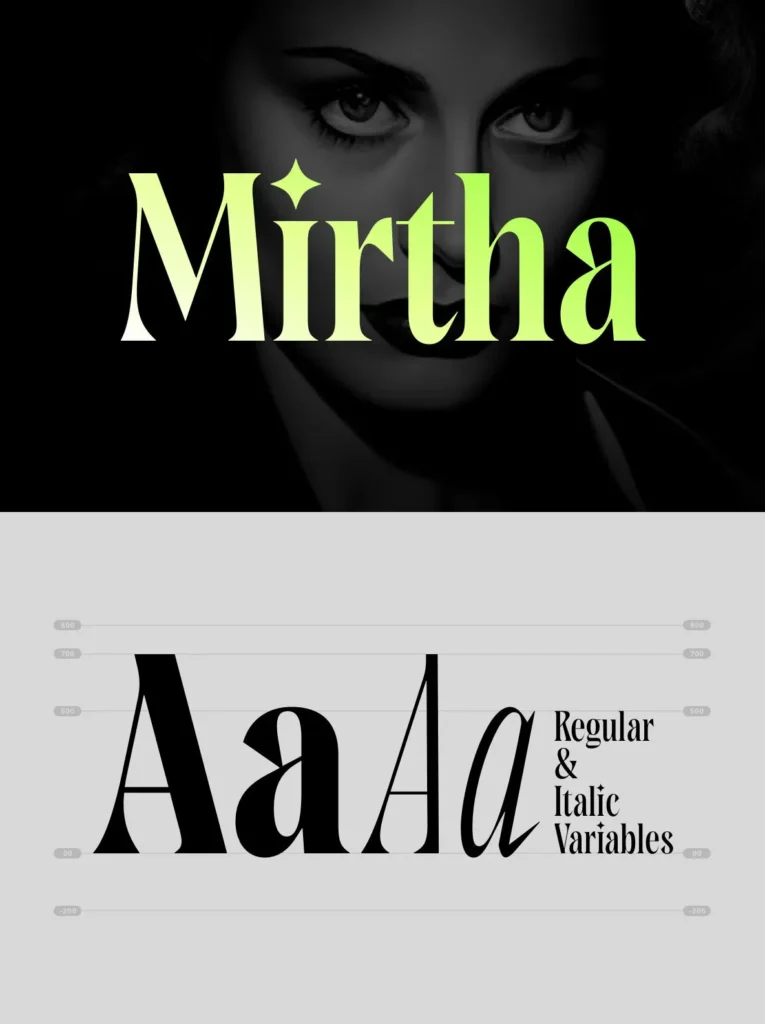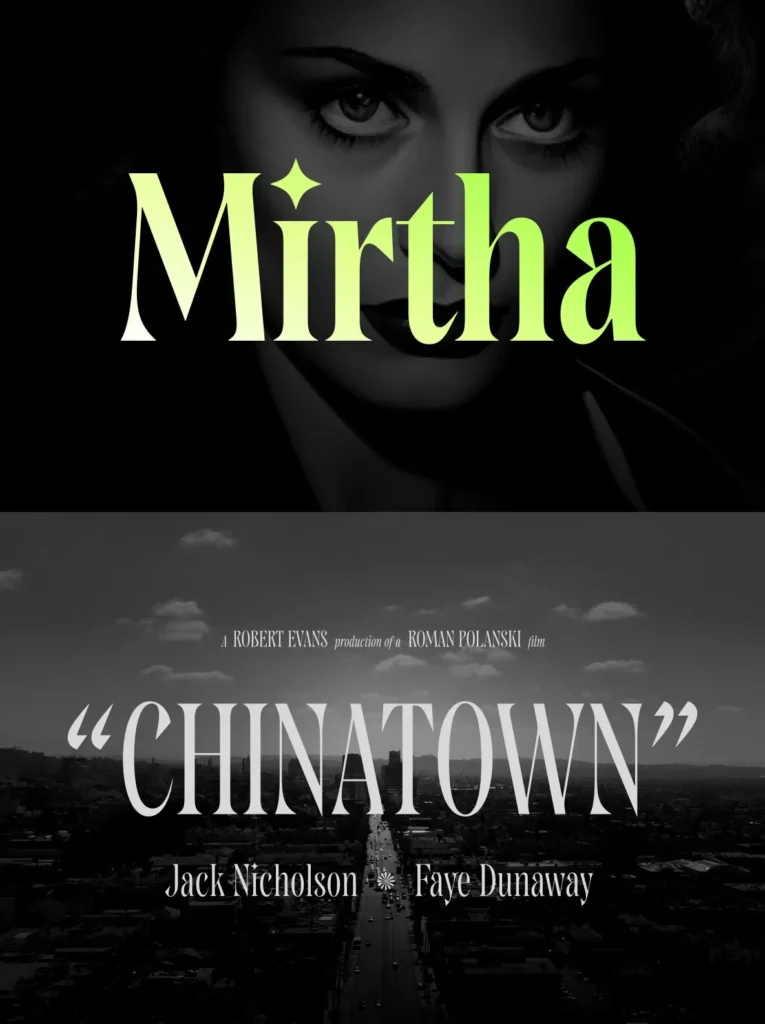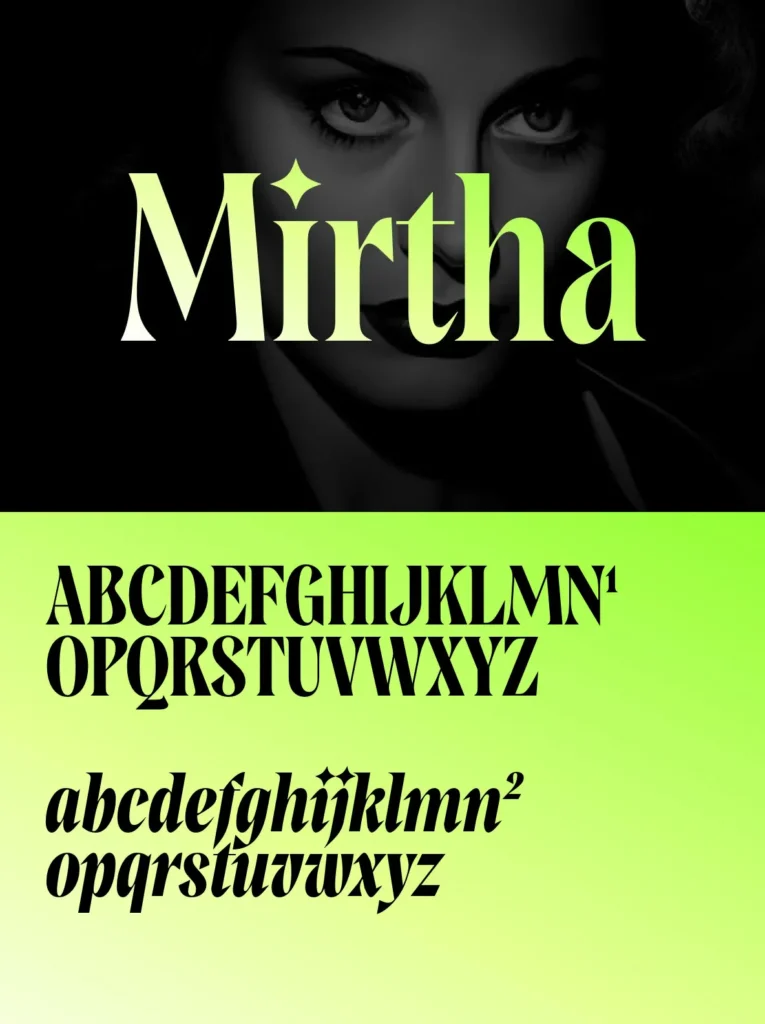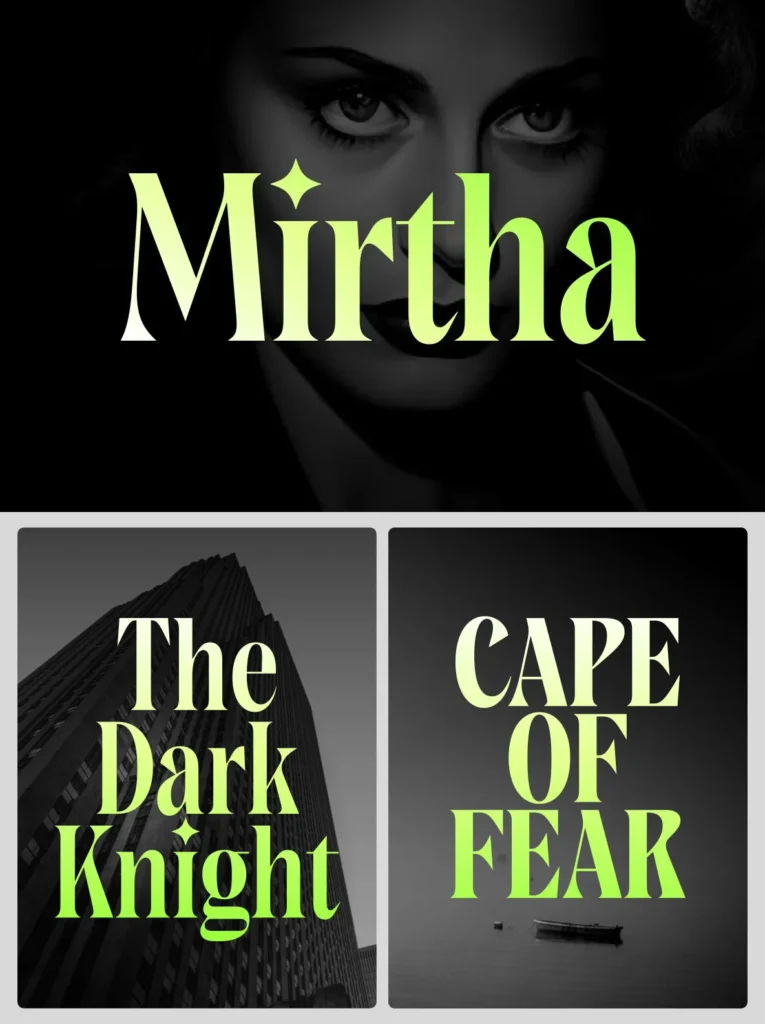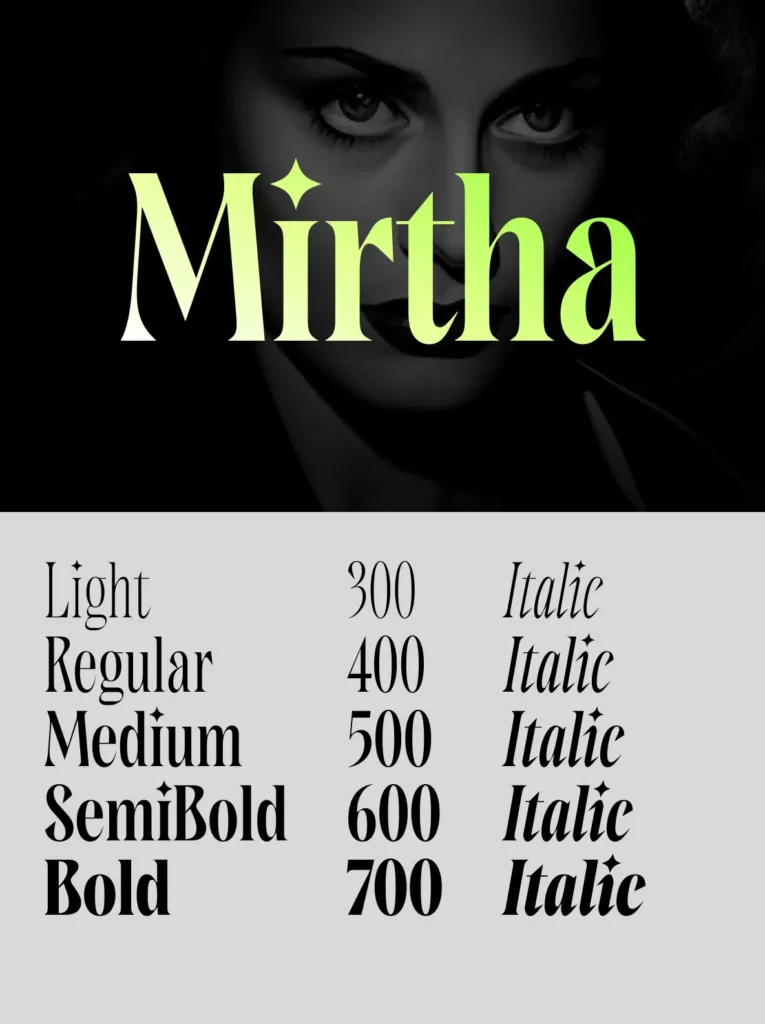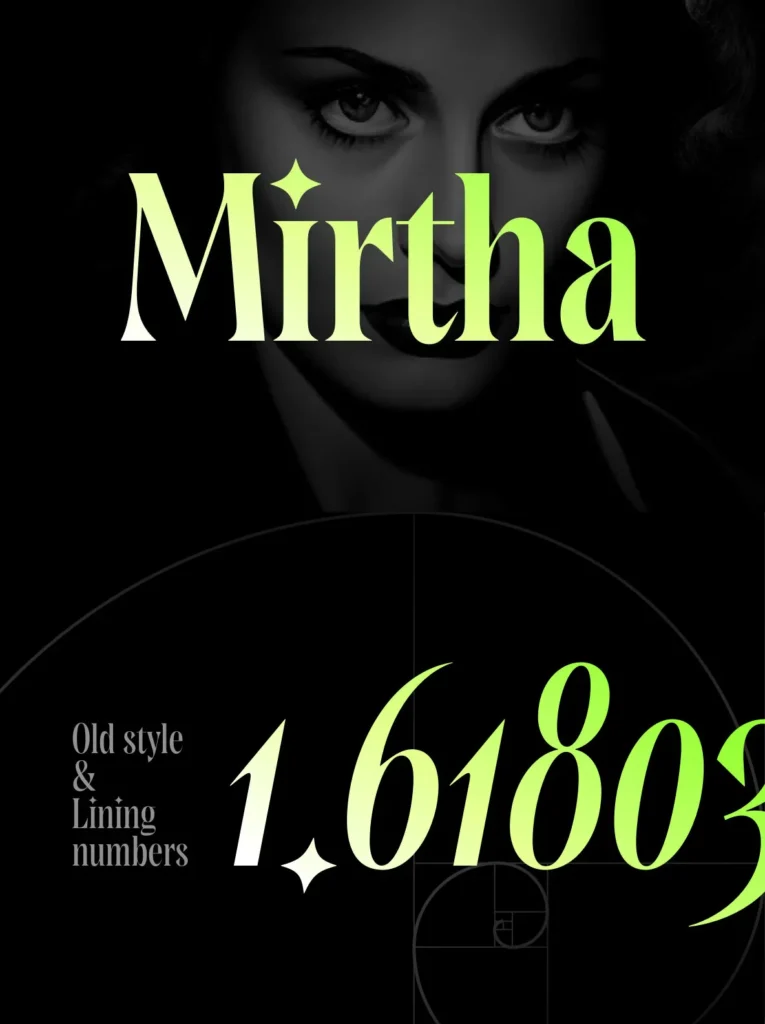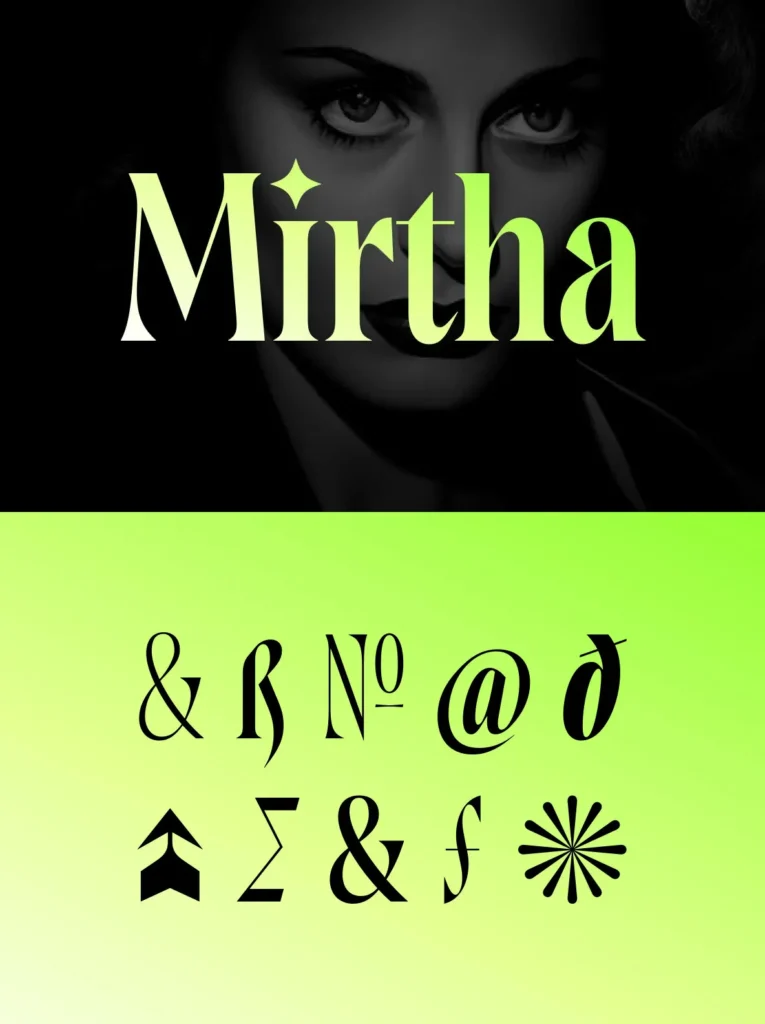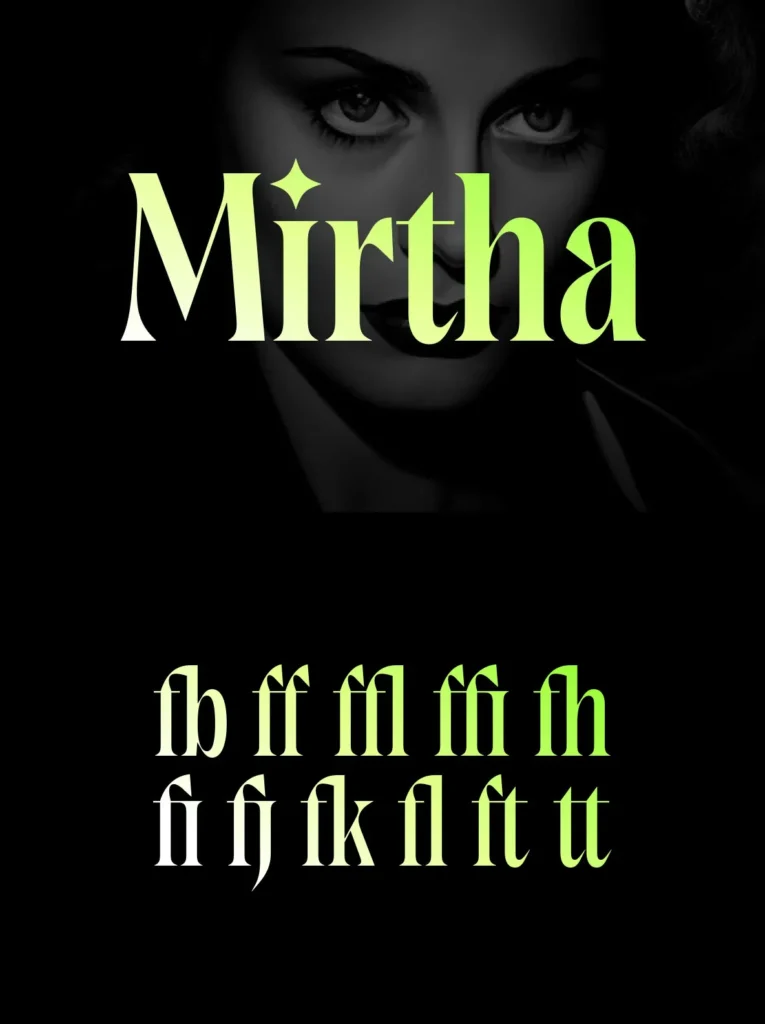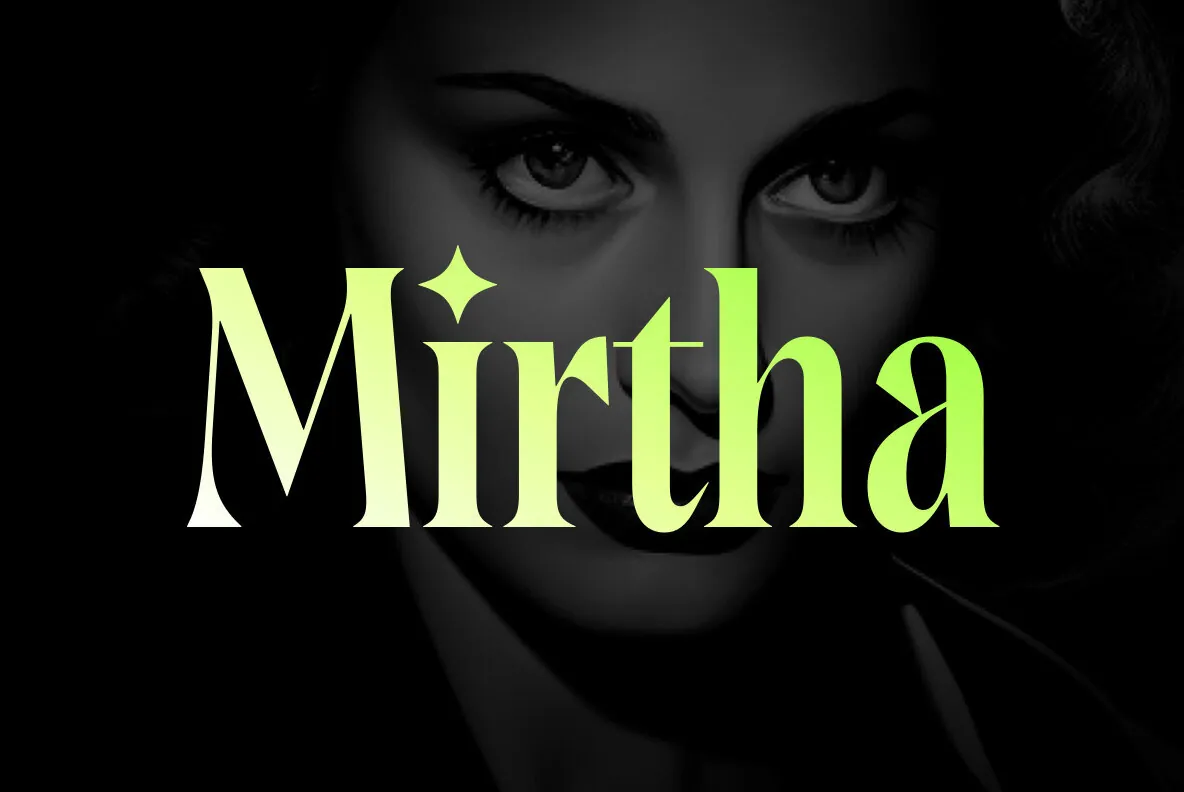
Mirtha Display: Art Nouveau Style for Contemporary Typography
Mirtha Display blends Art Nouveau influences with a modern sensibility, resulting in a versatile font suitable for creative projects that demand character and distinction. The lighter weights of Mirtha Display carry a condensed, refined silhouette, ideal for sophisticated layouts. In contrast, its heavier counterparts offer a striking presence, making headlines, posters, and branding elements stand out with authority. This balance between delicacy and impact allows designers to navigate projects ranging from editorial to packaging with precision.
Designed with a thorough attention to detail, Mirtha Display includes over 450 glyphs, providing broad language support and a wealth of typographic options. Whether used in visual identities, editorial layouts, or logotypes, this typeface adapts to both expressive and restrained aesthetics. Its design flexibility is reinforced by the availability of five weights, ten distinct styles, and two variable cuts—regular and italic—ensuring adaptability across formats.
Five weights and ten styles
Two variable cuts: regular and italic
Extensive character set with over 450 glyphs
Wide multilingual support
OpenType features including numerators, denominators, Old Style and Lining numbers
Standard ligatures and localized characters (Uppercase and Lowercase Sharp S)